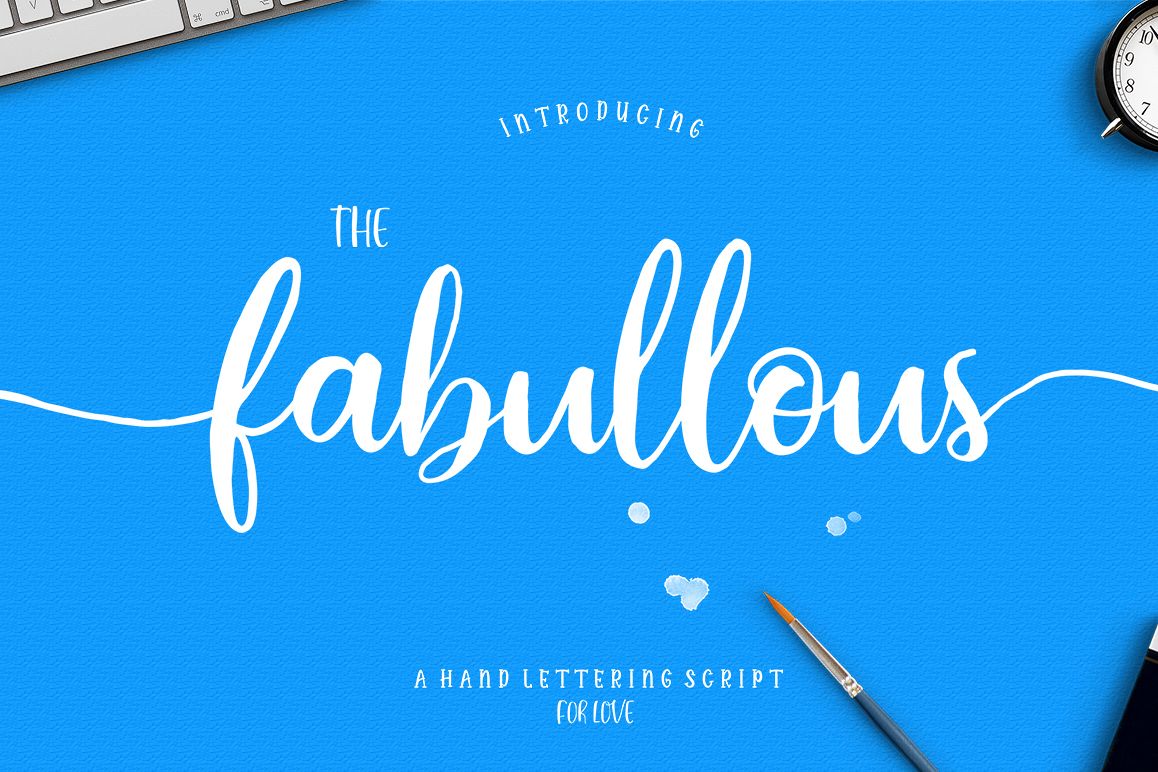
Fabullous Script
Fabullous Script is highly legible Script typeface, get touch of a bold, classic and fun Vintage Script font, With glyphs and opentype features with stylistic alternates. Can be used for various purposes. such as posters, t-shirt, signage, logos, news, badges etc. To enable the OpenType Stylistic alternates, you need a program that supports OpenType features such as Adobe Illustrator CS, Adobe Indesign & CorelDraw X6-X7, Microsoft Word 2010 or later versions.